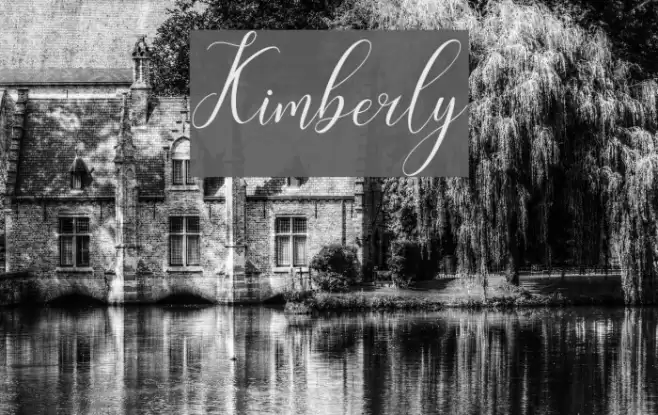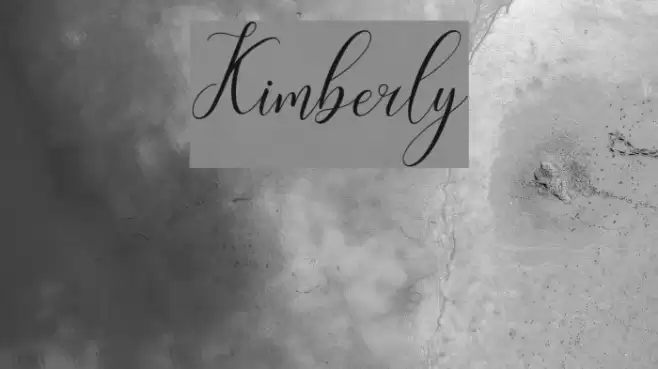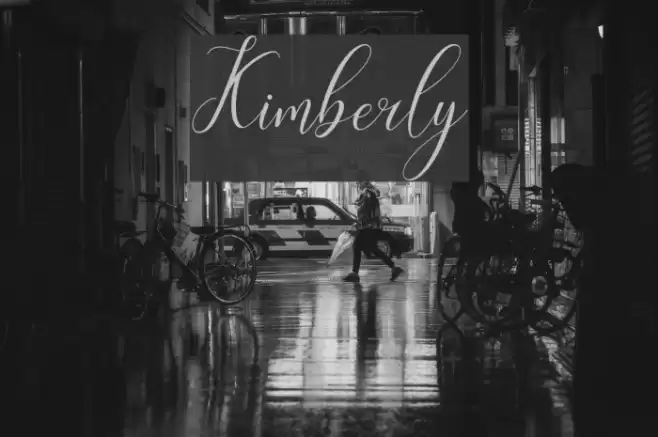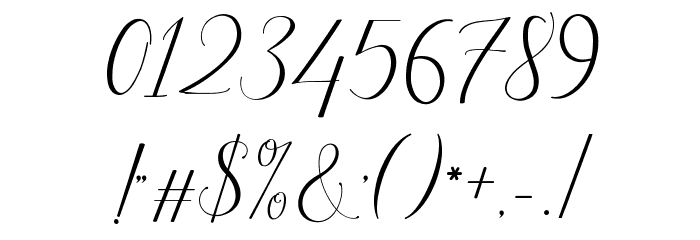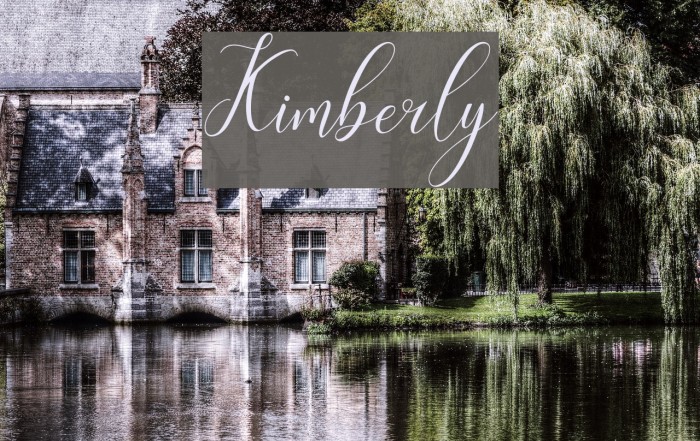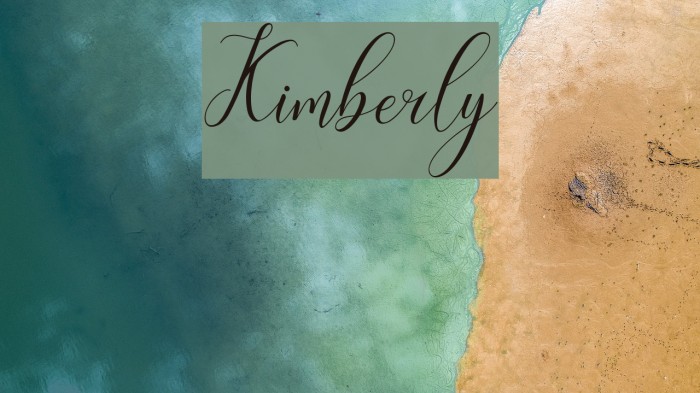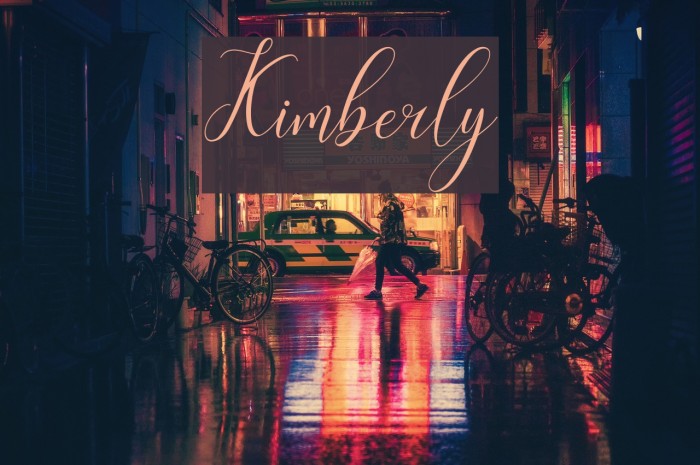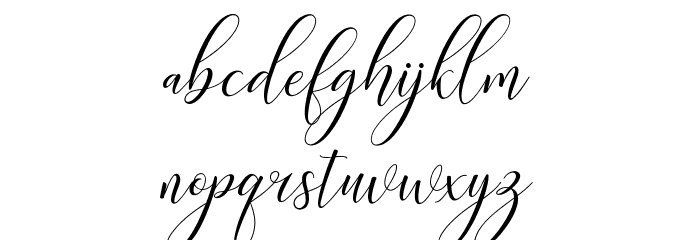
Kimberly Font
Kimberly Description
This elegant script font features a flowing, cursive style with graceful, elongated strokes and a refined appearance. The uppercase letters are characterized by their tall, slender forms and sweeping curves, while the lowercase letters maintain a consistent fluidity with delicate loops and connections. The numerals are stylishly integrated with the same cursive flair, offering a cohesive look across all characters. Special characters are thoughtfully designed to complement the overall aesthetic, making this font suitable for sophisticated and artistic applications.
An elegant script font with flowing, cursive strokes and refined details from Uncategorized fonts.
- Proposed Projects: Ideal for wedding invitations, elegant branding, personal stationery, and artistic projects requiring a touch of sophistication.
- Overall Style: Elegant, Artistic
- Use Case: Logos, Invitations, Decorative text